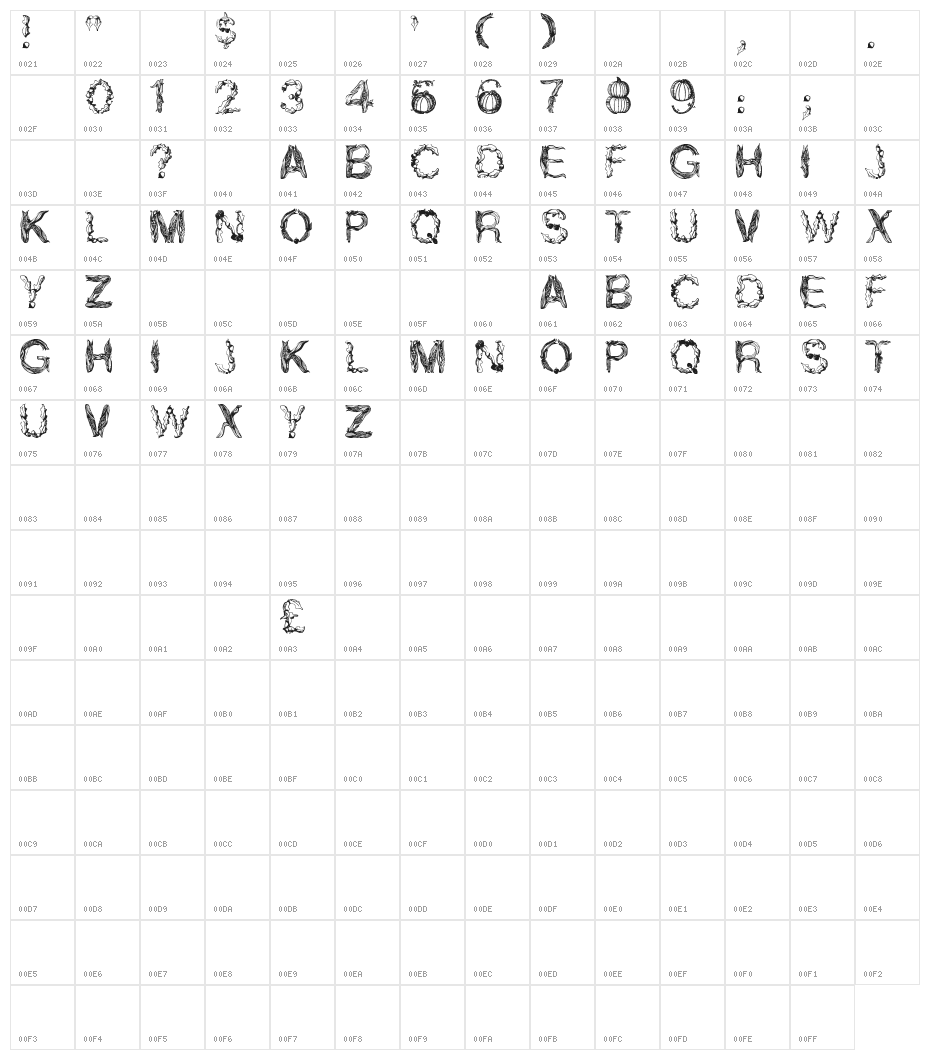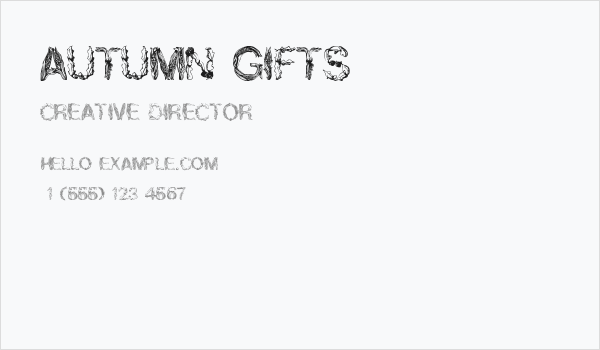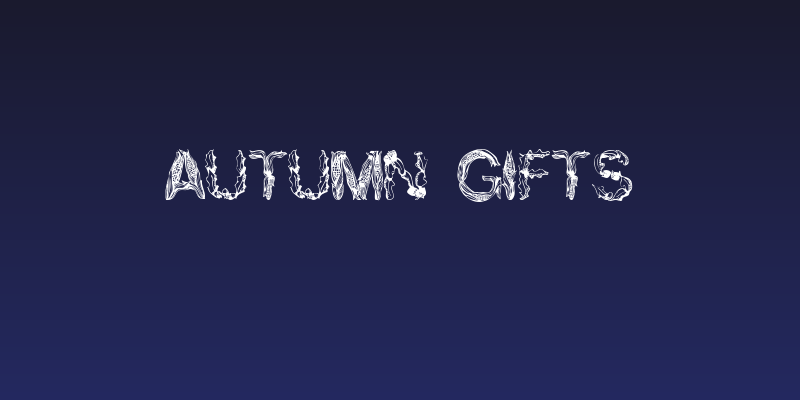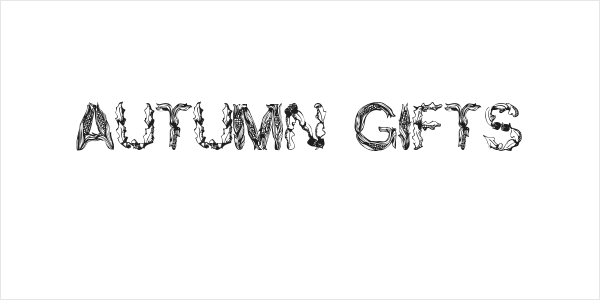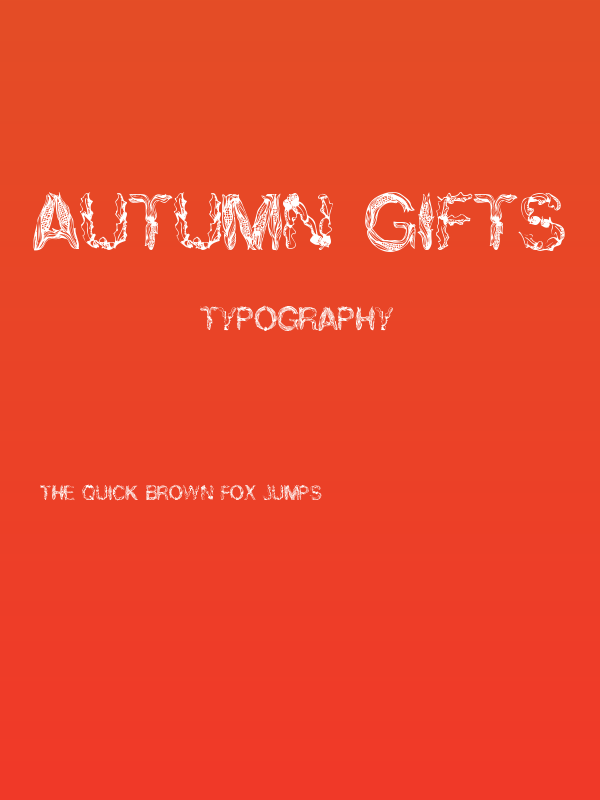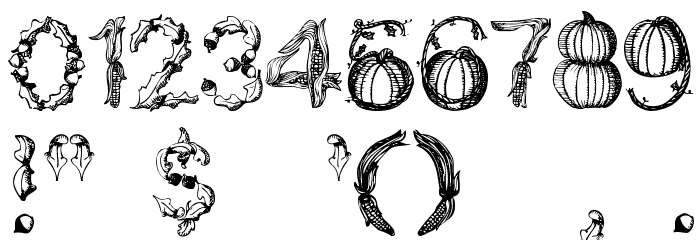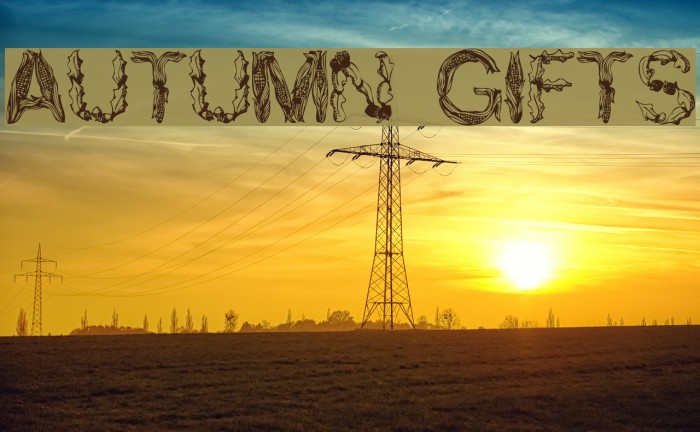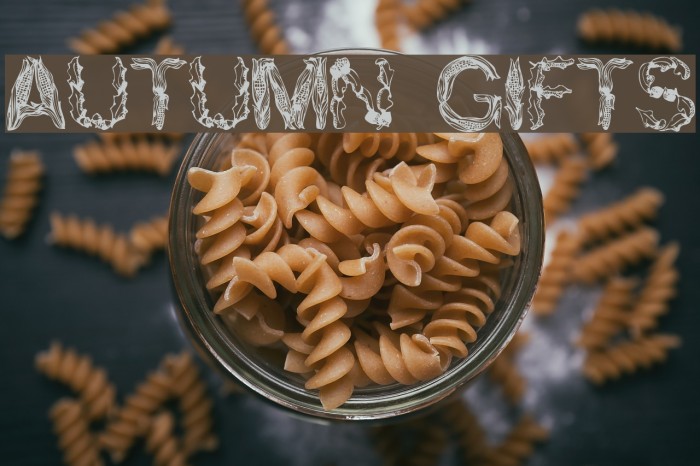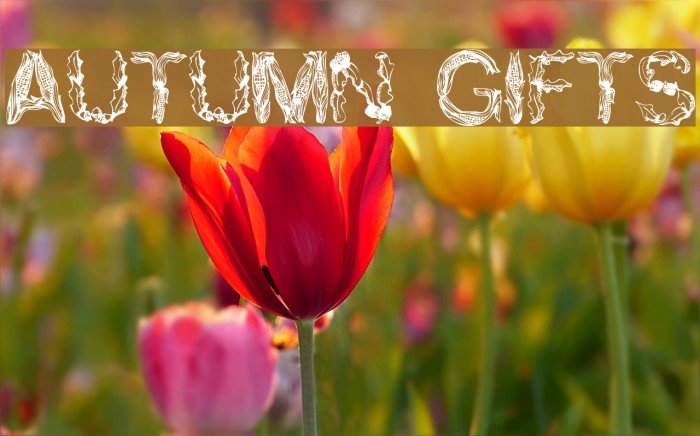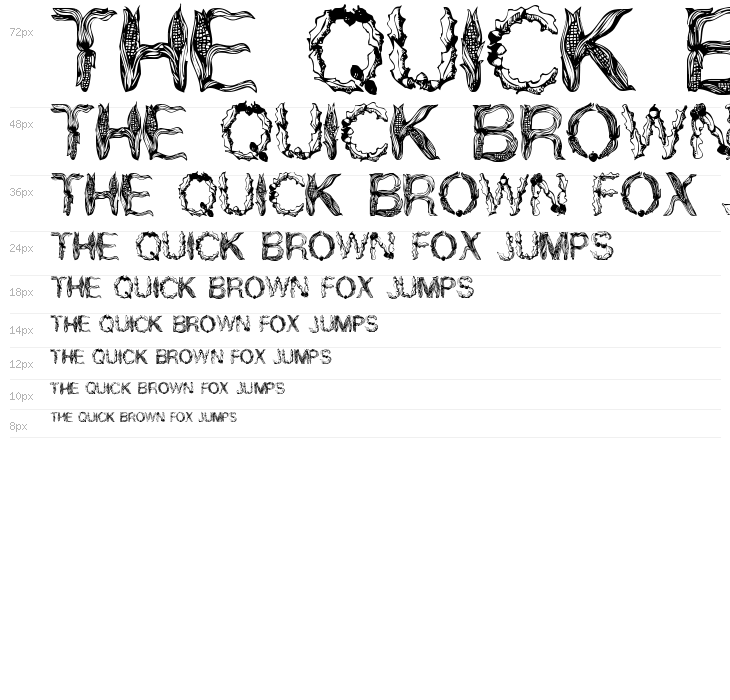
Autumn Gifts Font
Autumn Gifts Description
This font is a decorative and intricate design inspired by autumnal elements. Each character is adorned with detailed illustrations of leaves, vines, and other seasonal motifs, creating a unique and artistic appearance. The uppercase and lowercase letters, as well as numbers and special characters, are all embellished with these natural elements, giving the font a whimsical and organic feel. The intricate detailing makes it suitable for projects that require a touch of nature or a seasonal theme. The font's style is both playful and elegant, making it ideal for creative and artistic applications.
| Use Case | Headlines, Artistic projects, Seasonal themes |
| Proposed Projects | Ideal for seasonal greeting cards, invitations, posters, and artistic projects that require a nature-inspired theme. |